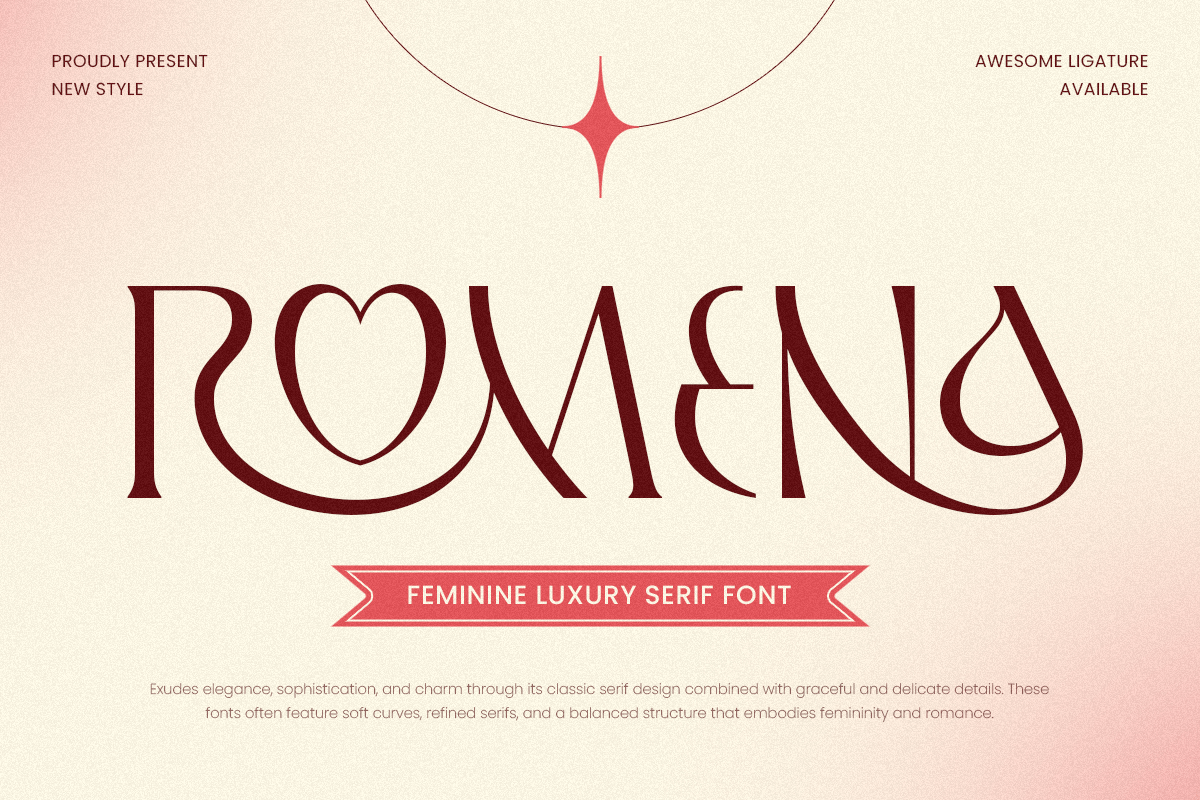
Romena
-Feminine Luxury Serif FontRomena - Feminine Luxury Serif Font
Romena is a feminine luxury serif font designed to exude beauty, elegance, and timeless charm. Its soft curves, refined contrast, and graceful serifs make it a perfect choice for branding, wedding invitations, high-end beauty packaging, and editorial headlines.
Inspired by classic typography with a modern twist, Romena font blends delicacy with sophistication. Whether you're creating logos, social graphics, or fashion layouts, this font ensures your message feels polished, feminine, and stylish.
Let Romena elevate your work with poise and personality — a serif font crafted for graceful storytelling.
Romena – Feminine Luxury Serif Font Features
Elegant serif style with soft, feminine curves
Ideal for beauty brands, weddings, and editorial design
Punctuation, numbers, and symbols included
Uppercase and lowercase letters
OpenType features for stylistic alternates and ligatures
Give your design a soft yet luxurious voice with Romena — crafted to inspire and captivate.